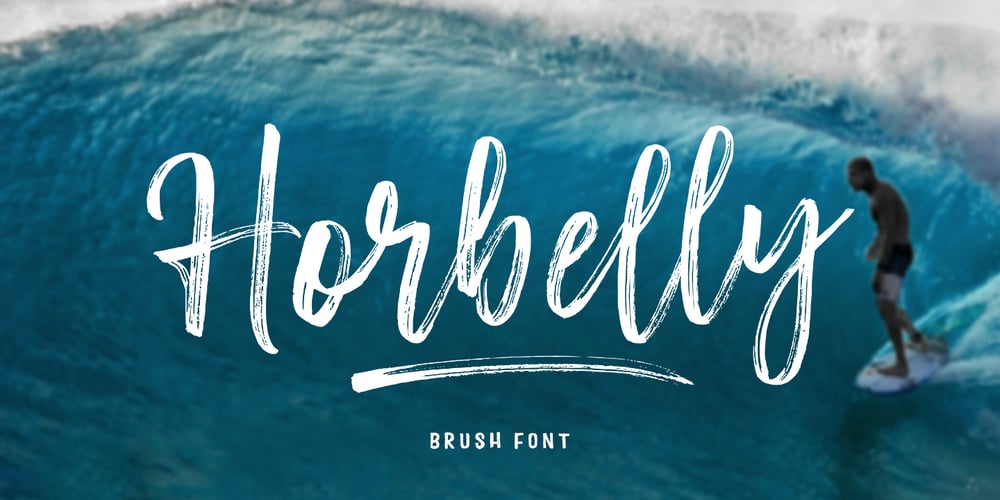
Horbelly
Horbelly font
Horbelly Font Family was designed by Yur Lis and published by Stripes Studio. Horbelly contains 2 styles and family package options. Horbelly is a new font that is brushed and very attractive with a natural, detailed and perfect texture. It also includes a weight with underline swashes. Horbelly is perfect for brand projects, logos, product packaging, posters, invitations, greeting cards, news, blogs, and everything where you wish to add a personal charm.